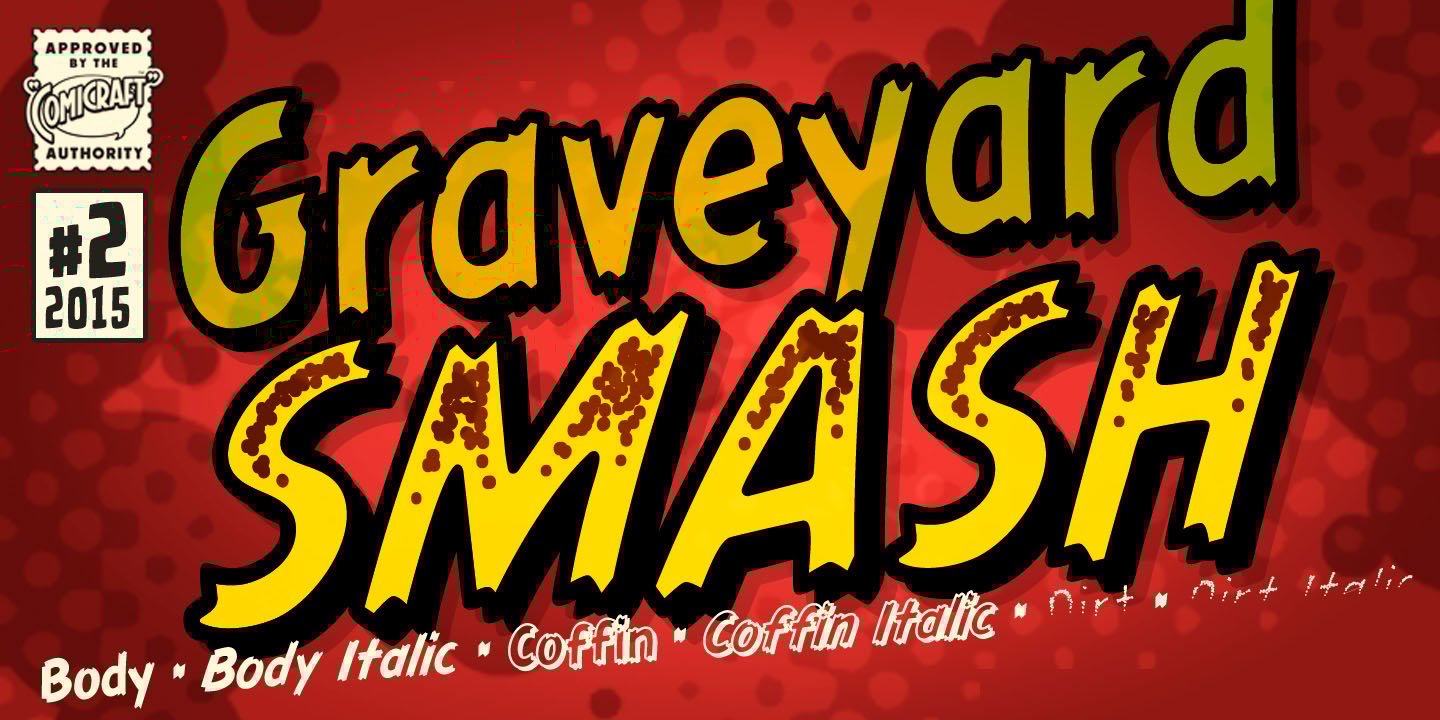
Graveyard Smash Font is ideal for spooky design projects including Halloween event promotions, horror movie titles, haunted attraction signage, gothic fashion brands, supernatural themed parties, horror gaming interfaces, dark entertainment venues, and spine-chilling marketing campaigns. This haunting typeface works perfectly for escape rooms, horror film festivals, gothic nightclubs, Halloween costume stores, and projects that celebrate the thrilling excitement and supernatural atmosphere of horror entertainment culture.
What makes Graveyard Smash Font exciting is its spine-tingling horror character that perfectly captures the essence of supernatural terror and gothic atmosphere. The font features jagged letterforms with haunting distortions that reflect the eerie energy and frightening appeal of horror entertainment. Its sinister design elements embody the spirit of supernatural thrills and gothic mystery, making it perfect for projects that need to convey fear, excitement, and connection to horror culture. The carefully crafted spooky details create an atmosphere of supernatural authenticity and gothic sophistication.
Graveyard Smash Font comes in multiple family variations including haunting, spooky, gothic, and supernatural styles. Each weight maintains the distinctive horror character while offering different levels of frightening intensity and supernatural presence. The font family includes horror alternates, spooky ligatures, and gothic variations that provide designers with comprehensive options for creating truly terrifying and authentically supernatural typographic compositions that celebrate horror excellence.
Whether you're designing horror branding, creating spooky marketing materials, or developing supernatural promotional graphics, Graveyard Smash Font Free Download provides the perfect typographic foundation for projects that celebrate horror excellence and gothic sophistication. This extraordinary typeface transforms ordinary text into compelling expressions of supernatural wisdom and gothic elegance. Download this haunting font today and terrorize your design projects with the horror authenticity and supernatural energy that captures the essential spirit of gothic culture and spine-chilling entertainment.